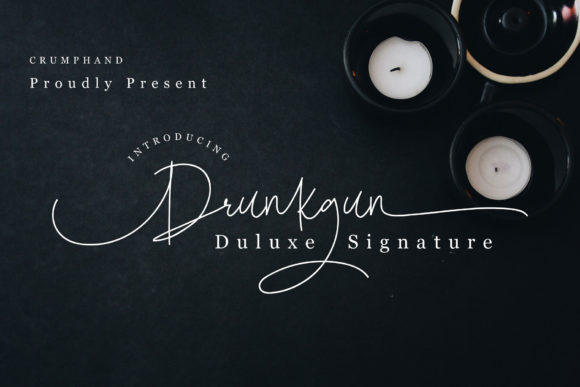
Introducing the Drunkgun Script Font, an exquisite signature font crafted by Eifets to elevate your designs with unparalleled sophistication. Experience the allure of this graceful script, embodying the essence of luxury and elegance.
Immerse yourself in the Drunkgun Script's meticulously crafted curves and flourishes, designed to add a touch of timeless beauty to your creative endeavors. Whether you're a seasoned designer or just starting out, this font is your perfect companion for creating designs that captivate and inspire.
With its versatile nature, the Drunkgun Script Font effortlessly adapts to a myriad of projects. From branding and logos to wedding invitations and social media graphics, this font seamlessly blends with your vision, transforming your ideas into stunning realities.
Unleash your creativity and explore the endless possibilities of the Drunkgun Script Font. Its meticulous detailing and refined aesthetic will effortlessly elevate your designs, leaving a lasting impression on your audience.
Indulge in the beauty of the Drunkgun Script Font and elevate your designs to new heights. Embrace the allure of this elegant signature font and create masterpieces that exude sophistication and grace.